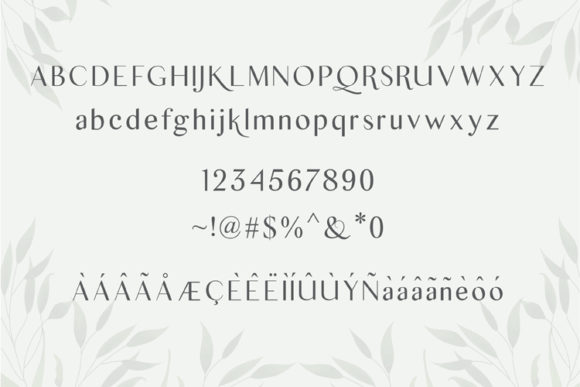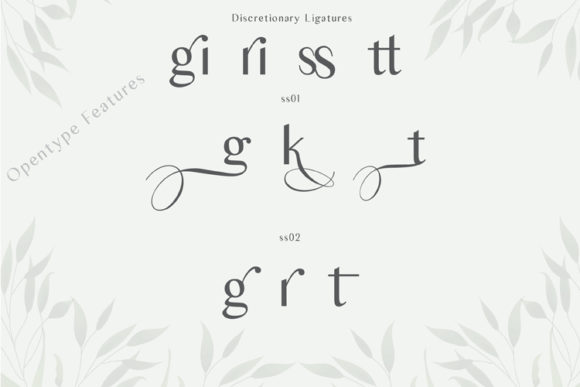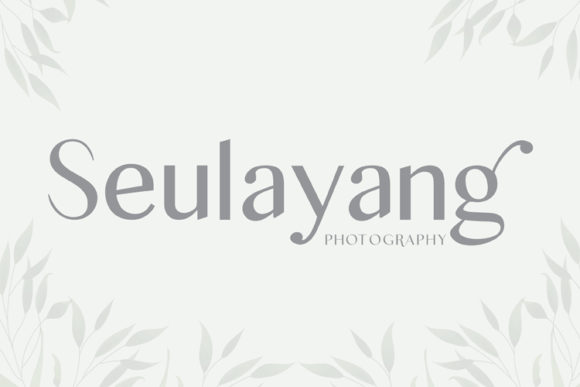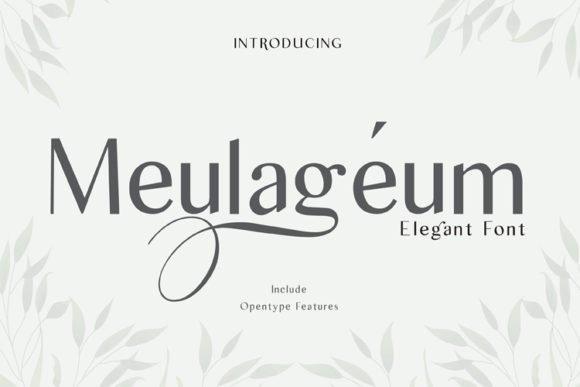
Introduction to Meulageum Font
Meulageum is a serif font that combines moderate classic style with a hint of sophistication, allowing for an incredibly vibrant and luxurious appearance.
It will look especially gorgeous in logos, posters, covers, packaging, t-shirts, business cards, wedding cards and much more .
Key Features of Meulageum Font
Why Choose Meulageum Font?